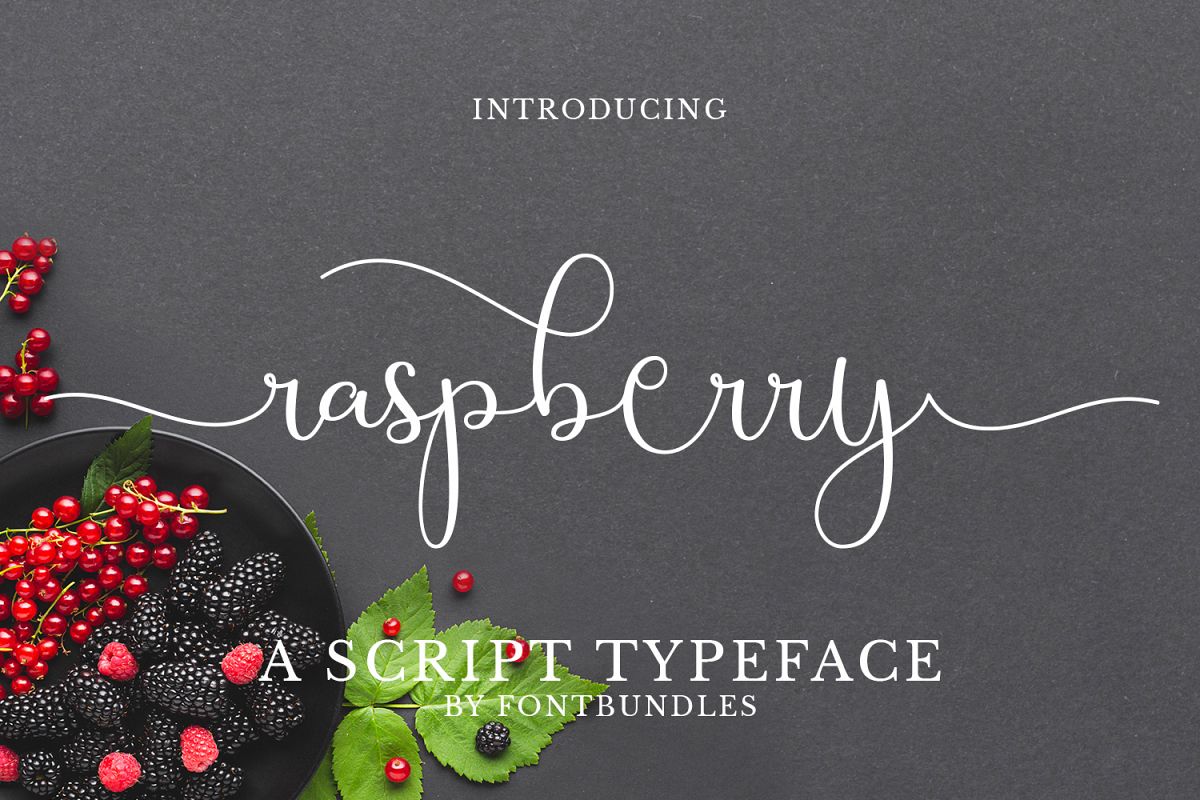
Raspberry
Raspberry is a script typeface. Perfect for display, quotes, name card, business card, wedding needs, craft needs, logo, logotype, branding, packaging, merchandise, header, tittle, and many more.